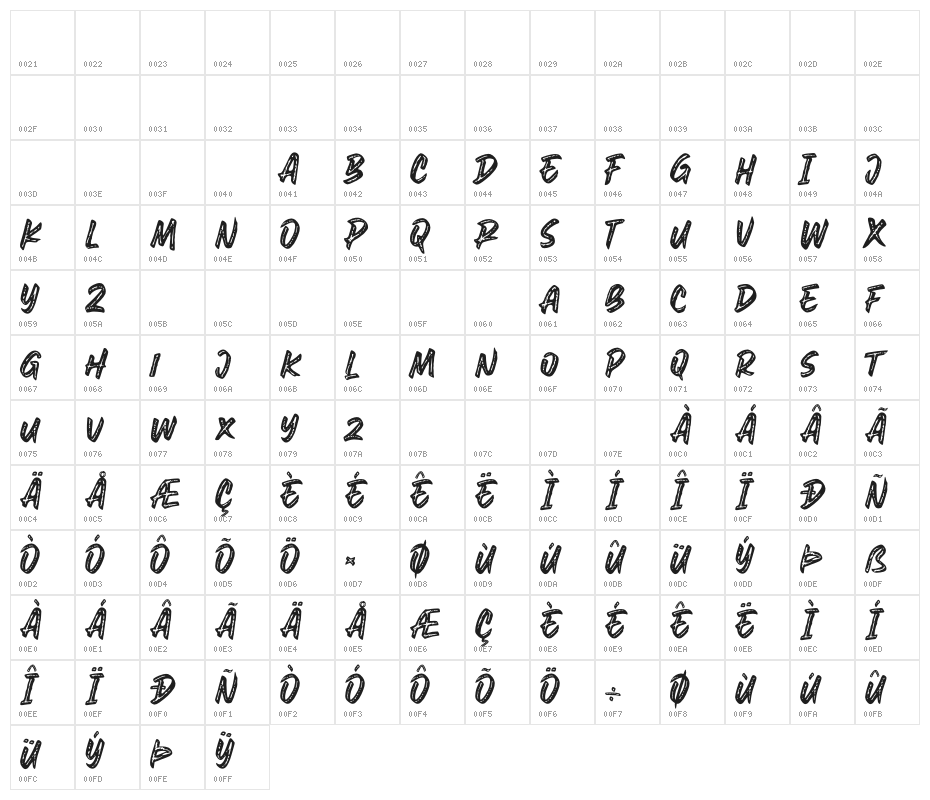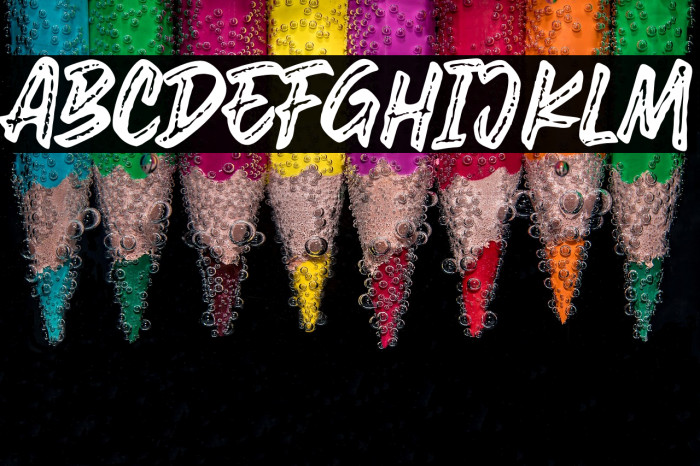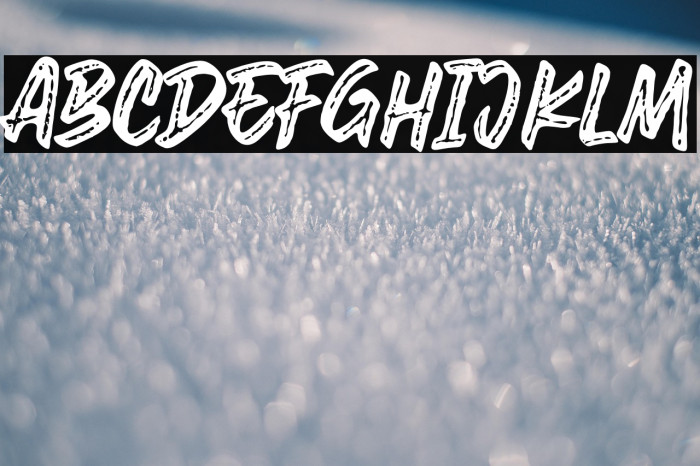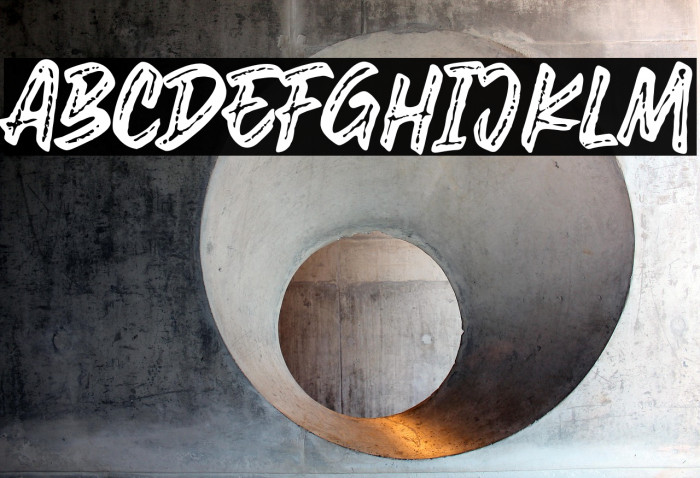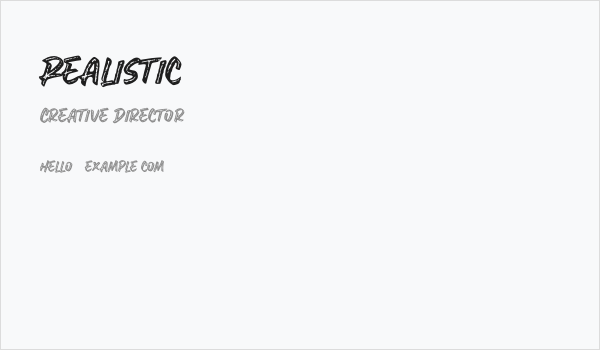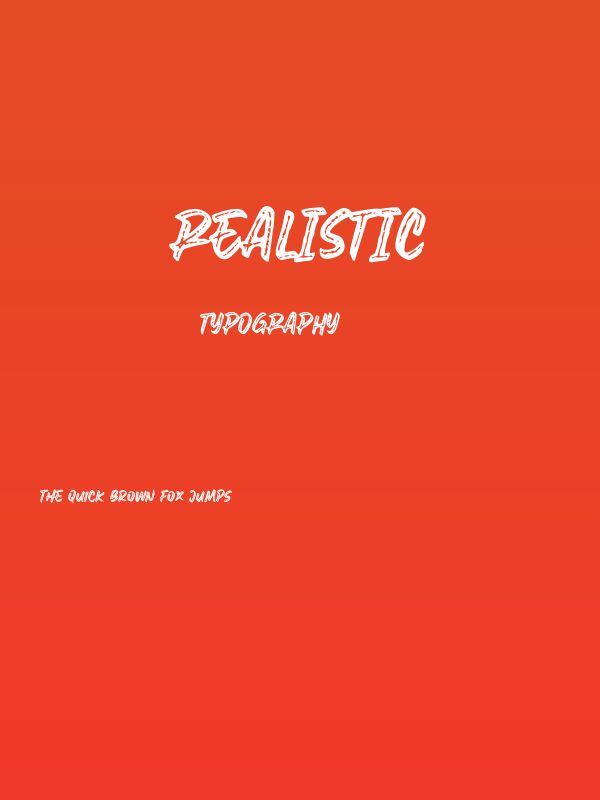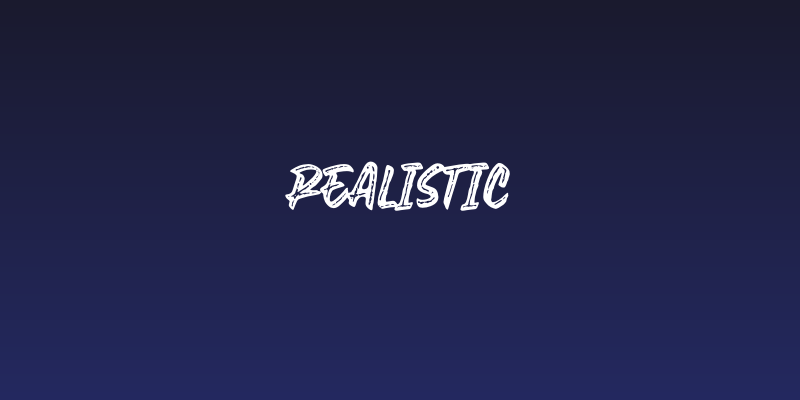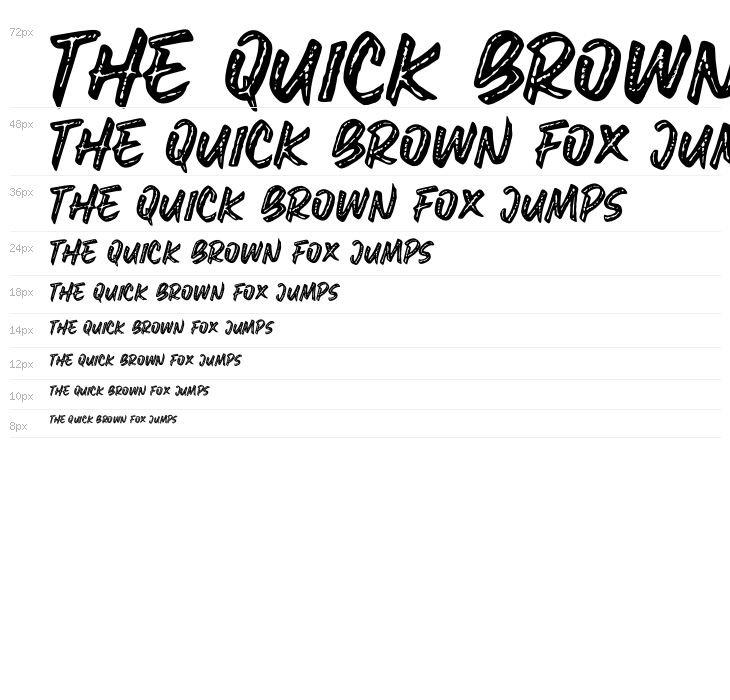
Realistic Font
Realistic Description
This font features a bold, handwritten style with a dynamic and energetic appearance. The letters are crafted with a brush-like texture, giving them a lively and artistic flair. Each character is distinct, with varying stroke widths that add to the font's expressive nature. The uppercase and lowercase letters maintain a consistent style, ensuring readability while retaining a unique personality. The font's playful yet sophisticated design makes it suitable for creative projects that require a touch of individuality and flair.
Proposed ProjectsIdeal for branding, posters, invitations, and creative projects that seek a personal touch.